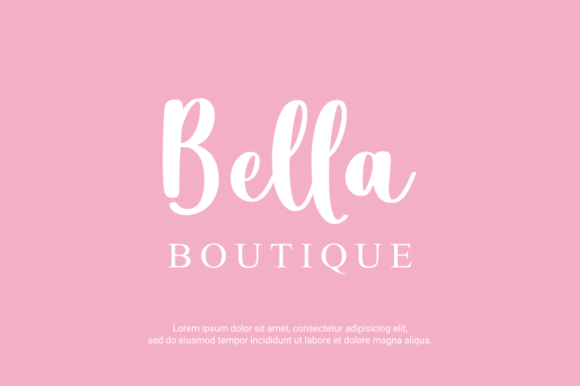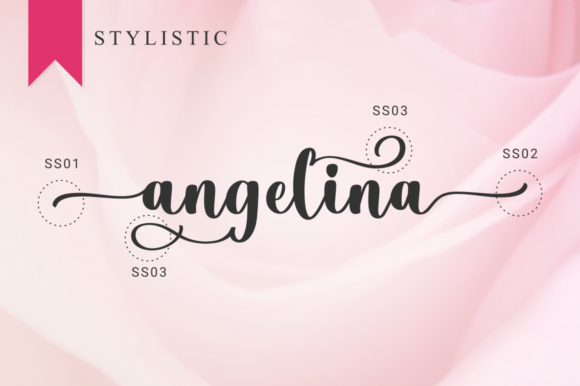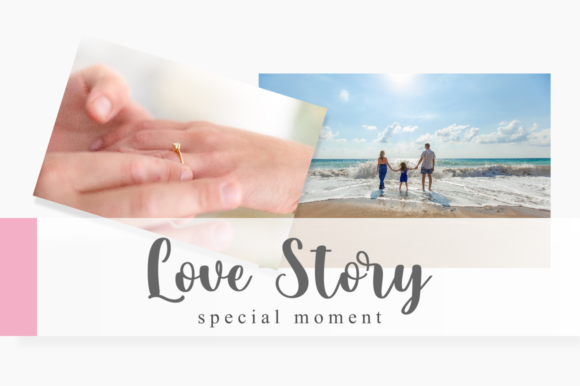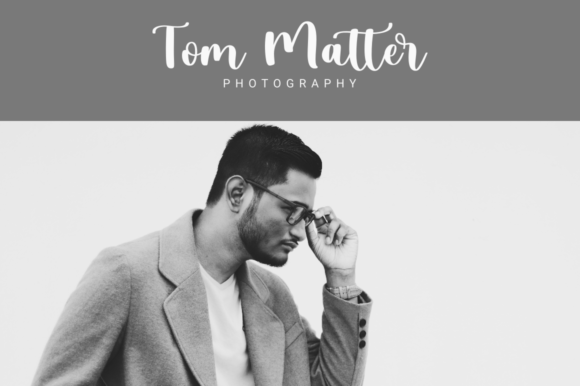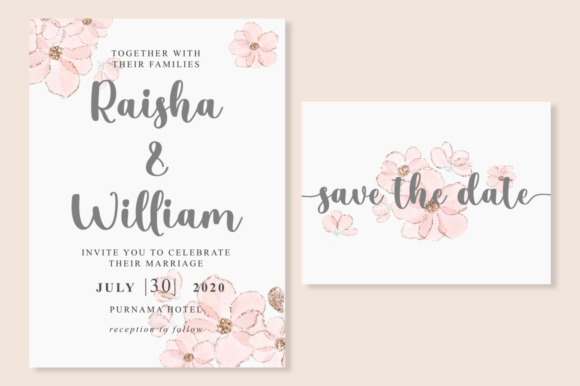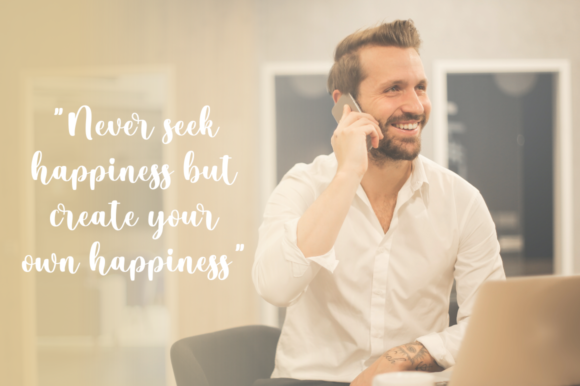
Get Ready to Fall in Love with Carlyne Font
There’s something magical about creating something from scratch – the feeling of putting pen to paper, watching your ideas come to life, and seeing the smile on the recipient’s face. For designers, this moment is what makes all the hard work worth it. And, if you’re looking for the perfect tool to make your creations truly special, you’re in luck!
Meet Carlyne Font, a sweet and soft handwritten font that’s sure to capture the essence of your unique style. Whether you’re designing wedding invitations, beautiful stationery, or eye-catching social media posts, Carlyne Font is the perfect companion to help you bring your vision to life. With its authentic feel and versatility, this font is a valuable asset for any designer looking to add a touch of personality to their work.
Carlyne Font Key Features
- Font Family: Carlyne Font
- Font Styles: Regular, Italic, Bold, Bold Italic
- Character Set: Latin
- Size: 1,024 glyphs
- Unique Characteristics: Carlyne Font is a modern, elegant script font with a touch of sophistication, perfect for creating beautiful invitations, wedding stationery, and other special occasion designs.
Carlyne Font Review
Overall, I think the Carlyne font is a beautiful and elegant script font. It’s perfect for those looking for a high-end, luxurious feel in their design.
- Refined and sophisticated look
- Perfect for creating a sense of luxury and high-end feel
- Beautiful connections between letters
- Supports various languages, including Latin, Cyrillic, and Greek
- May be too ornate for some designs, particularly those requiring a more modern or minimalist aesthetic
- Does not support bold or italic font weights
- May not be suitable for body text, as it can be quite elaborate
Overall, the Carlyne font is a great choice for designers looking to add a touch of sophistication and elegance to their designs. However, it may not be the best fit for every project, particularly those requiring a more modern or simple aesthetic.
Some tips for getting the most out of Carlyne Font include using it in bold or italic styles to add emphasis, and combining it with other fonts to create a unique look. Common use cases for Carlyne Font include creating elegant and sophisticated designs, such as invitations, business cards, and brochures.
Alternatives to Carlyne Font for Designers
Oswald is a sans-serif font designed by Vernon Adams. It is a versatile font suitable for headings and titles, making it an excellent choice for designers who need a clean and modern look. Oswald is more condensed than Carlyne Font, making it ideal for smaller spaces and titles.
Comparison: Oswald Font has a more geometric feel and is more suitable for digital media, whereas Carlyne Font has a more classic feel and is suitable for both digital and print media.
Montserrat is a sans-serif font designed by Julieta Ulanovsky. It is a highly versatile font suitable for various design projects, from headings to body text. Montserrat has a more modern feel than Carlyne Font, with a focus on urban aesthetics.
Comparison: Montserrat Font is more condensed and has a more modern feel than Carlyne Font, making it ideal for digital media and urban-inspired designs.
Open Sans is a sans-serif font designed by Steve Matteson. It is a highly readable font suitable for body text and is widely used in digital media. Open Sans has a more neutral feel than Carlyne Font, making it an excellent choice for designers who need a clean and professional look.
Comparison: Open Sans Font is more readable than Carlyne Font, especially in digital media, but lacks the classic feel of Carlyne Font.
Avenir Font
Avenir is a sans-serif font designed by Adrian Frutiger. It is a highly versatile font suitable for various design projects, from headings to body text. Avenir has a more classic feel than Carlyne Font, with a focus on elegance and sophistication.